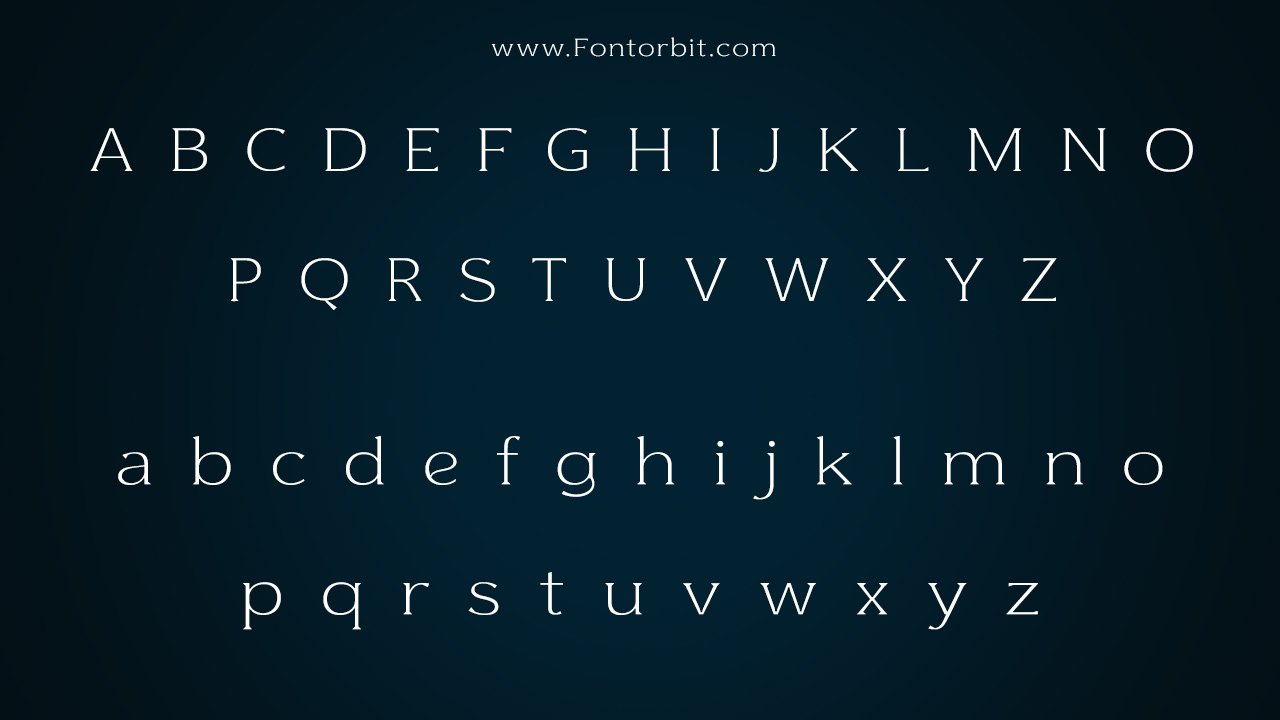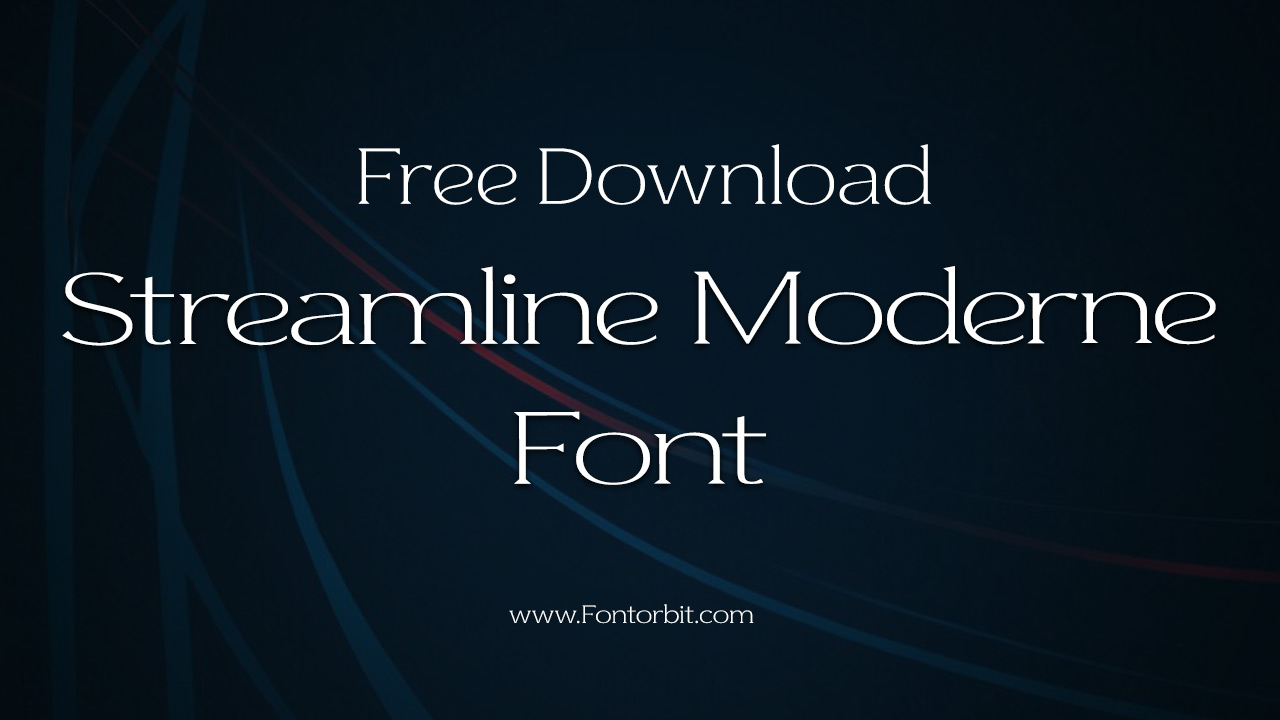
Streamline Moderne is a distinctive typeface characterized by its sleek, futuristic design, reminiscent of the Art Deco era’s fascination with speed and modernity.
Designed by Cotbada_studio and first published in Feb 23, 2021, the font falls under the “Streamline” family, known for its clean, geometric lines and elegant curves.
Streamline Moderne Font Family Includes
Streamline Moderne is part of a broader family of fonts that feature streamlined, geometric designs. This family includes various weights and styles that complement its primary design, providing versatility for different applications.
a. Streamline Moderne Regular
Notable Uses Of Streamline Moderne
Streamline Moderne has been used in various contexts, particularly in designs aiming to evoke the glamour and forward-looking spirit of the 1930s. Its sleek lines make it ideal for branding, posters, and retro-themed projects.
Streamline Moderne is best suited for use in:
- Retro-inspired designs and artwork
- Vintage branding and logo creation
- Modern, sleek editorial layouts
- High-fashion advertisements and posters
Streamline Moderne is a versatile and striking typeface that pays homage to the Art Deco movement. Its clean, streamlined appearance makes it an excellent choice for a variety of design projects that require a touch of retro sophistication.
6.What Is The Best Use For Streamline Moderne?
Ideal for retro-themed design, branding, and modern editorial projects.